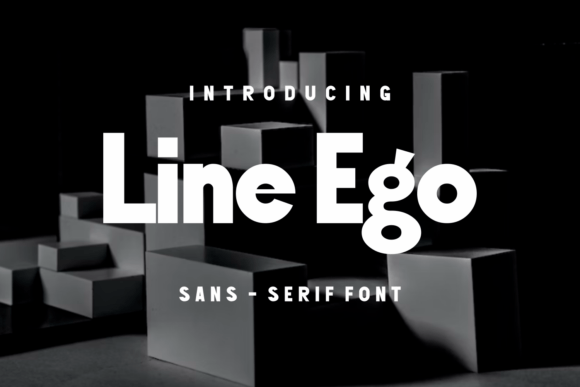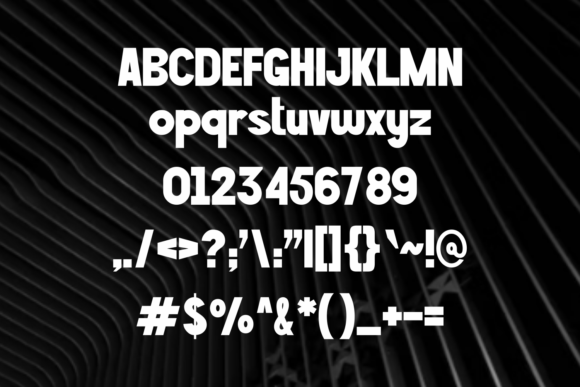
Introduction to Line Ego Font
Line Ego is a bold and minimalist sans serif font, perfectly suited on print/screen.
It is perfect for branding, name cards, posters, logos, magazines, covers, banners, t-shirts, headers, or even large-scale artwork .
Key Features of Line Ego Font
Why Choose Line Ego Font?